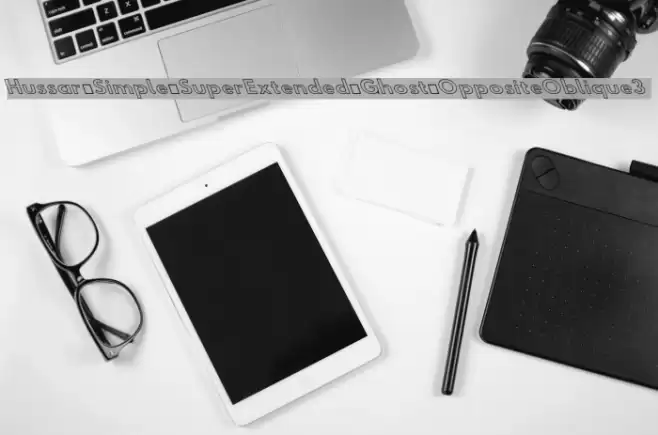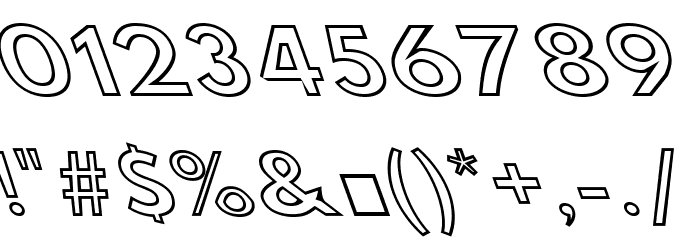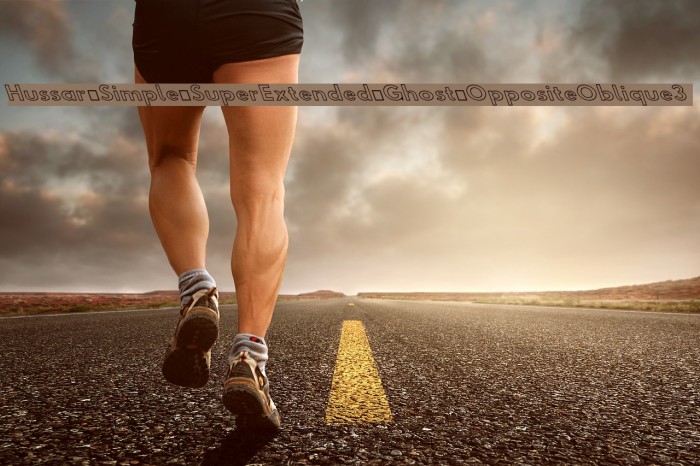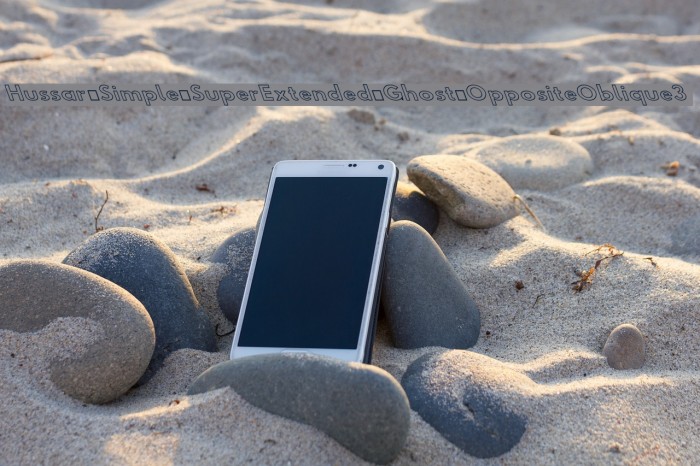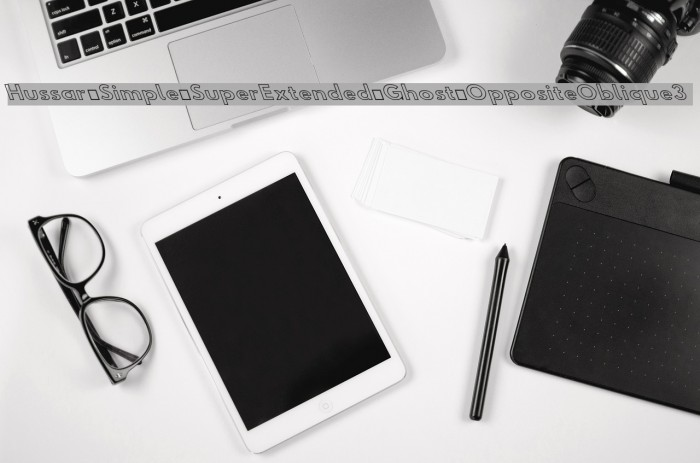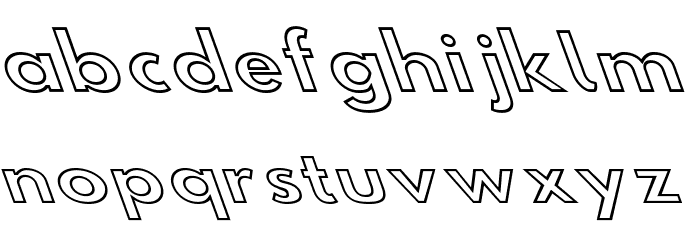
Hussar Simple SuperExtended Ghost OppositeOblique3
This font features a unique outline style with a modern twist. The characters are super extended, giving them a wide and spacious appearance. The oblique angle adds a dynamic and forward-moving feel, while the ghost-like outline provides a sense of lightness and transparency. The uppercase and lowercase letters maintain a consistent style, with smooth curves and sharp angles that enhance readability. Numbers and special characters are designed to match the overall aesthetic, making this font versatile for various design needs.
A modern, super extended outline font with an oblique style.
- Proposed Projects: Ideal for modern branding, poster design, and digital media where a bold, eye-catching font is needed.
- Width: Expanded
- Character Spacing: Wide